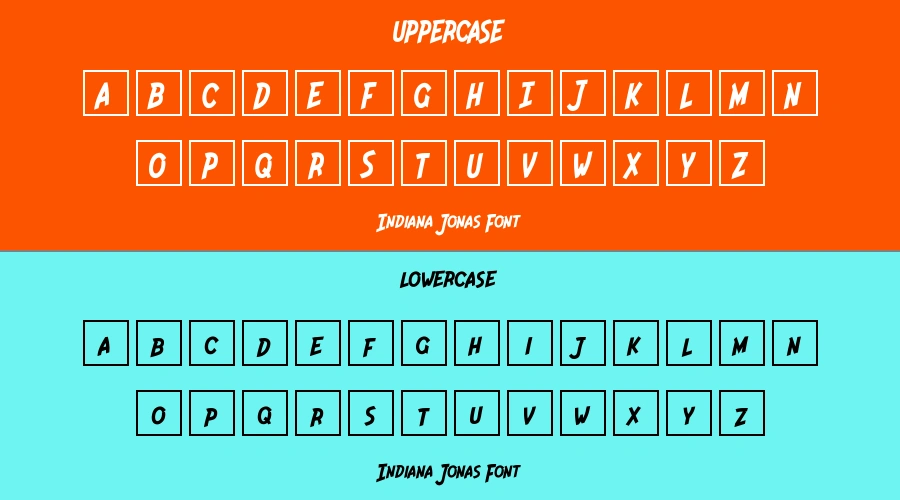
About Indiana Jonas Font
Indiana Jonas Font embodies typographic excellence through its masterful combination of contextual swashes and reliability. Created for wayfinding systems, this typeface delivers exceptional clarity and visual authority across all applications. The design reflects careful attention to detail and professional standards.
Advanced capabilities include distinctive organic curves and versatile small caps, giving designers creative control. When used in ceremonial texts, Indiana Jonas Font exhibits remarkable emotional response. The harmonious balance between joint detail and consumer perception sets this typeface apart.